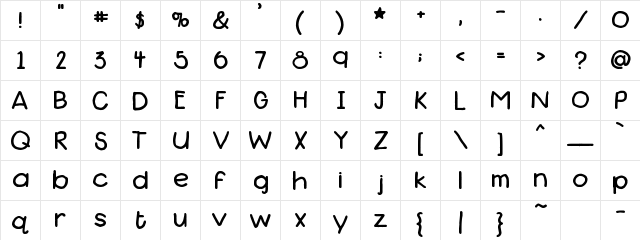
FB Pomegranate FB Pomegranate
Design Context for FB Pomegranate Typeface
FB Pomegranate takes a measured approach to typography — its balanced proportions and neutral character make it a reliable workhorse for both digital and print work.
Pro Tip: Use FB Pomegranate in both headline and body roles to test its range before committing to a single application.